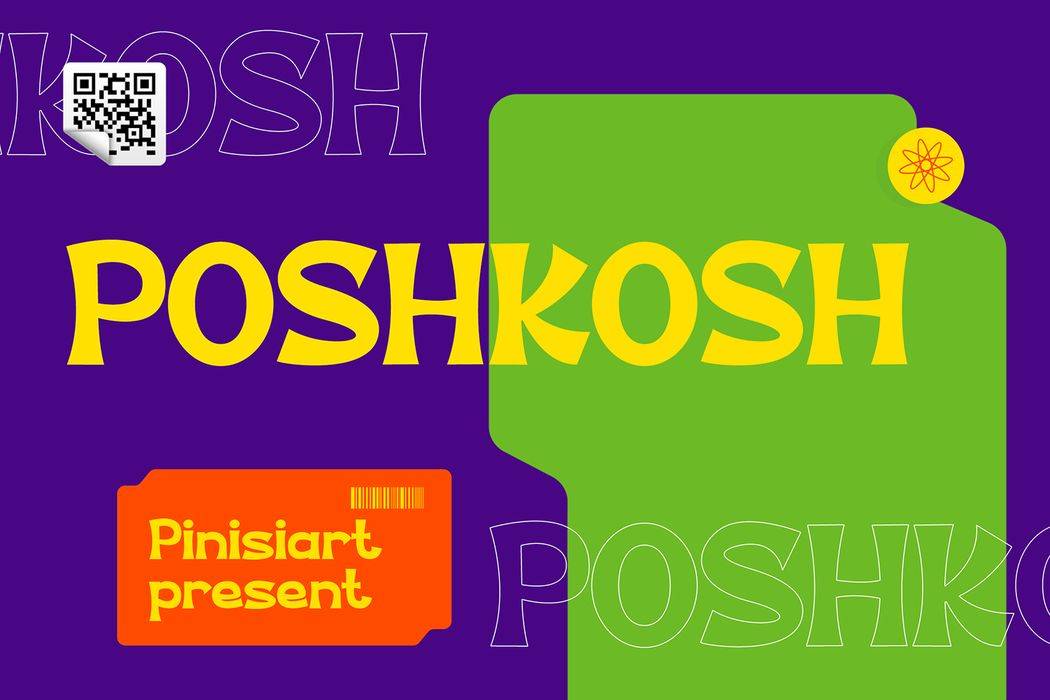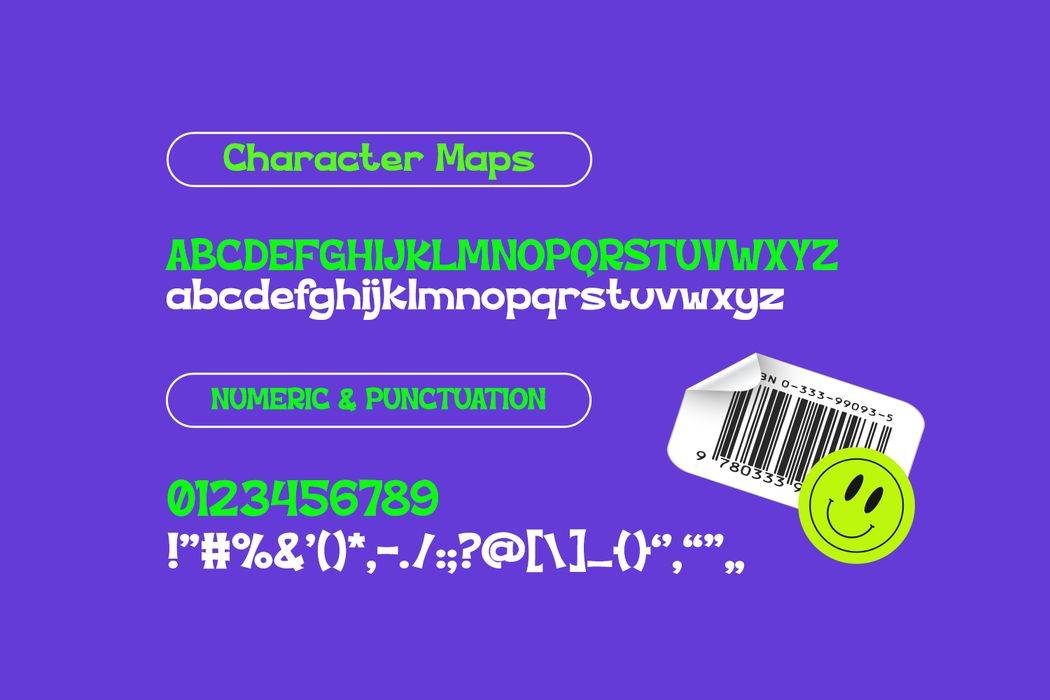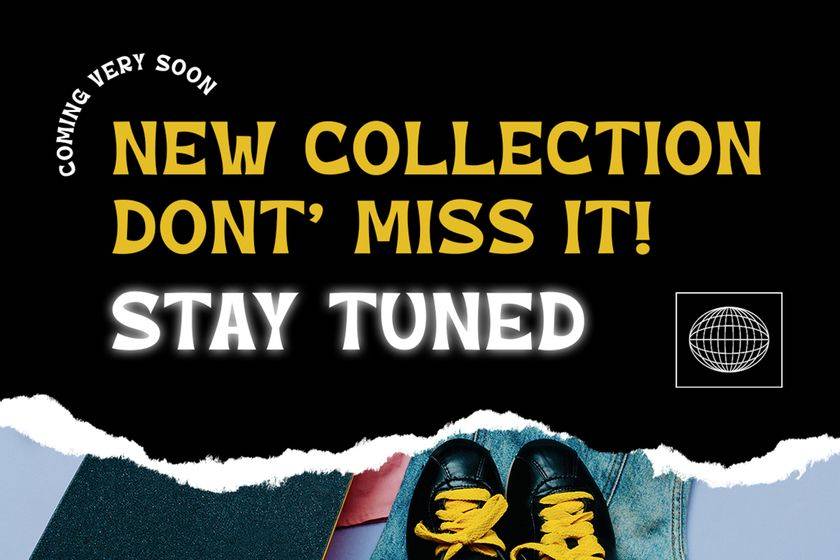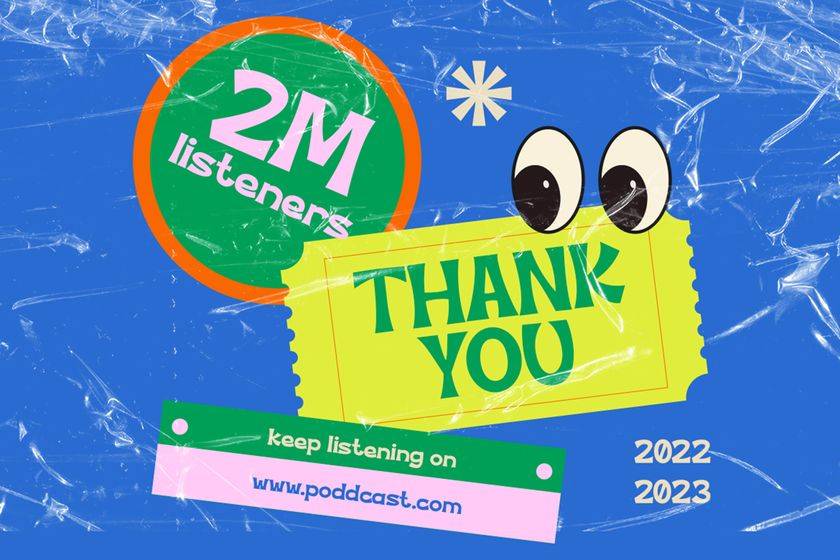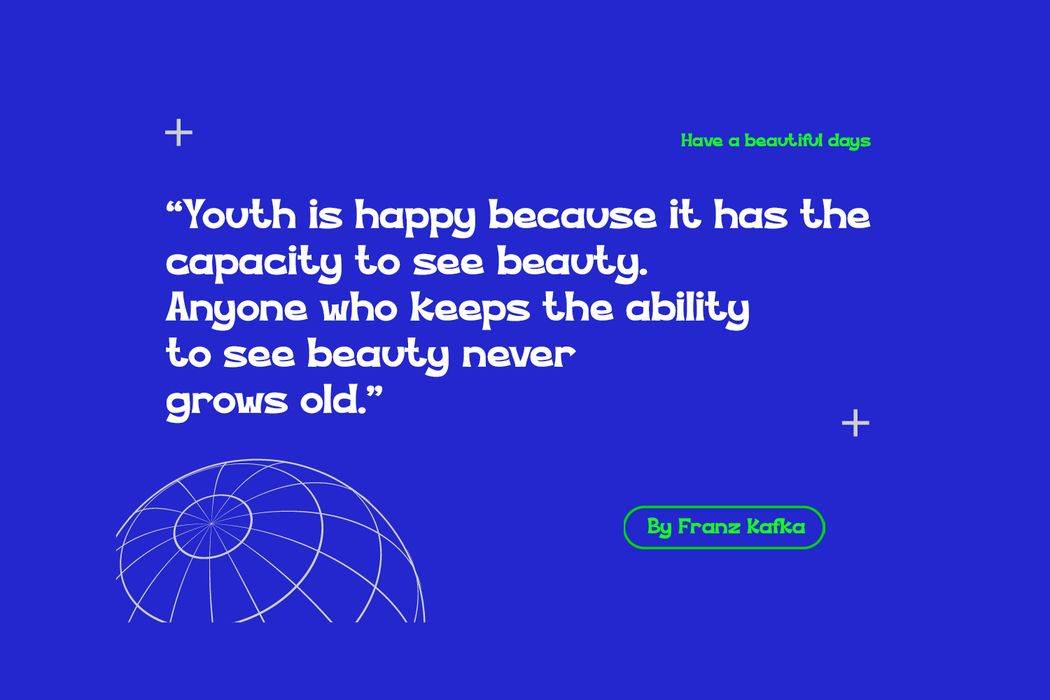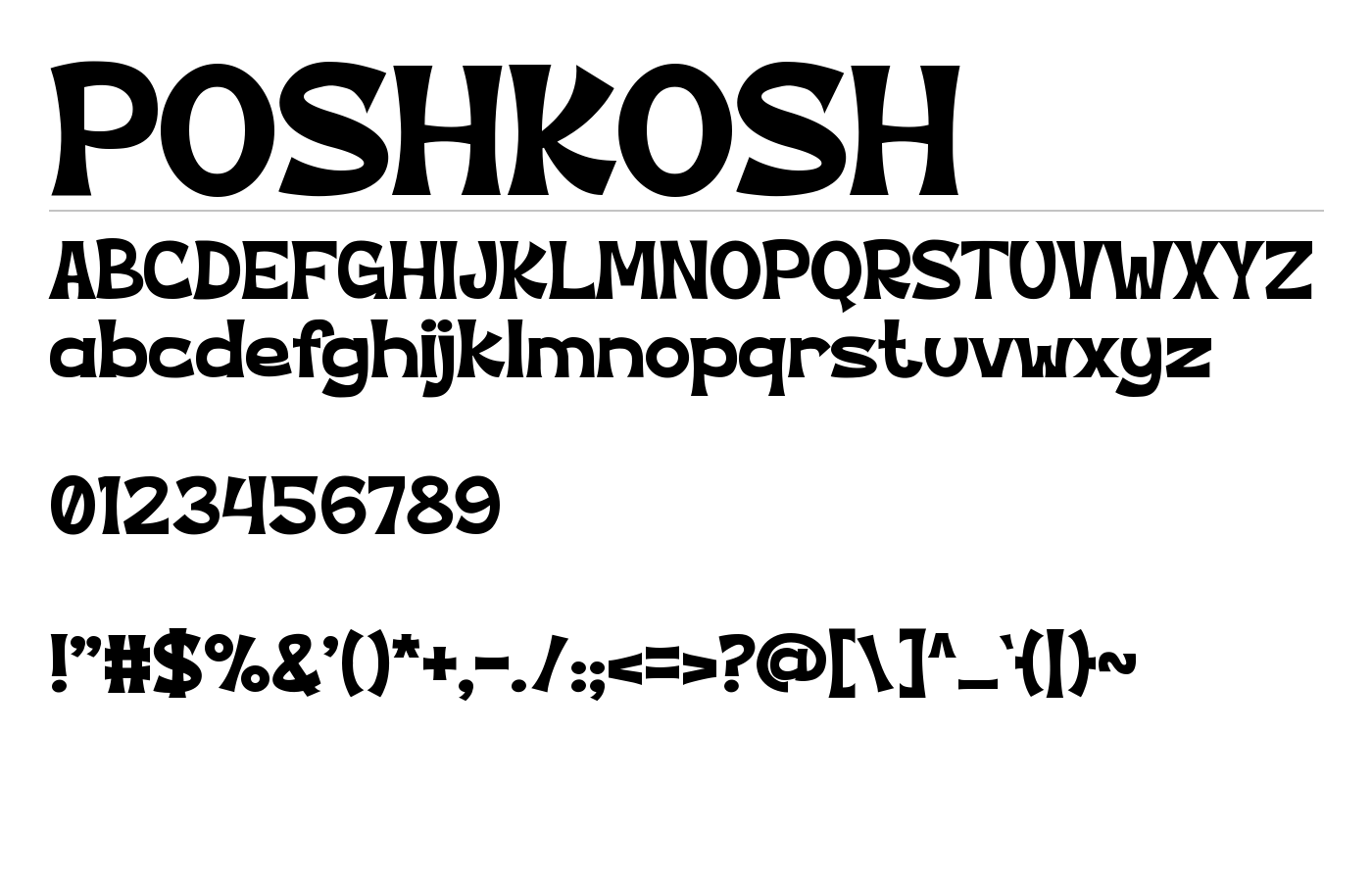
Poshkosh is a playful and bold serif typeface featuring thick, uneven strokes that create a lively and quirky character. Its wide letterforms, irregular serifs, and high contrast evoke a sense of fun and creativity, making it ideal for eye-catching headlines, posters, and branding aimed at a youthful or artistic audience. This font brings a unique, dynamic personality to designs that want to stand out with a distinctive, informal flair.
Poshkosh Font
About Poshkosh Font
| Font family | Poshkosh Font |
| Designer | PINISIART Team |